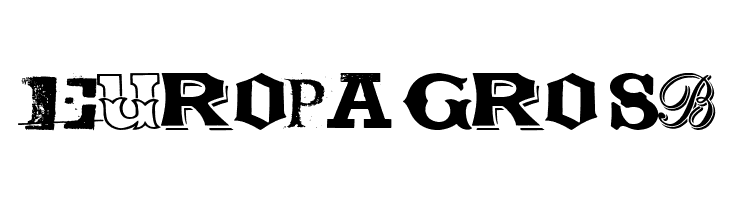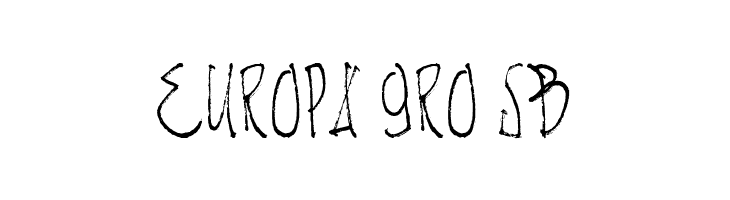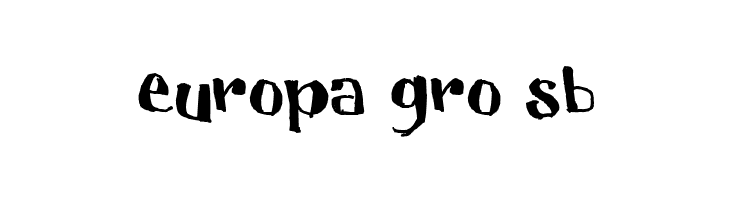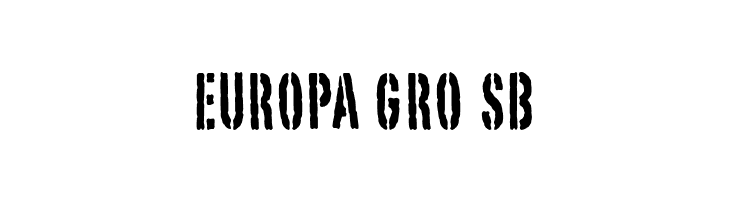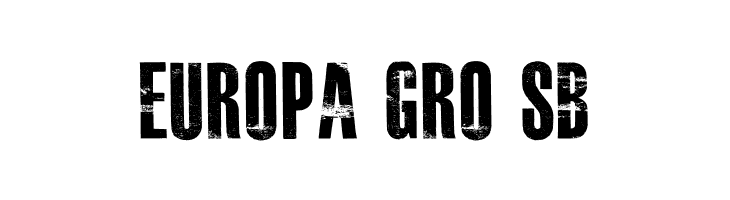
A lively and expressive handwritten font with fluid, cursive strokes.
A modern, geometric sans-serif font with rounded edges and uniform width.
A bold, decorative font with a distressed, grunge texture, ideal for thematic designs.
A bold, graffiti-inspired font with playful, rounded characters.
A bold, distressed font with a rugged, vintage aesthetic.
A bold, elegant script font with flowing cursive letters and high contrast.
An elegant script font with ornate, flowing letterforms and high contrast.
A bold, brush-style script font with a dynamic, hand-drawn appearance.
An elegant and ornate script font with flowing, interconnected letterforms.
A distressed, grunge-style font with a rough, textured appearance.
A bold, cursive font with elegant, flowing strokes.
A textured, cursive font with a playful, vintage feel.
A bold, vintage-inspired font with a playful and structured style.
A grungy, distressed script font with intricate swirls and splatters.
A bold, playful font with a three-dimensional outline and whimsical serifs.
A bold, fluid script font with dynamic strokes and interconnected letters.
A bold, distressed font with a grunge texture, perfect for edgy designs.
A bold, distressed font with a vintage, textured appearance.
A bold, italicized font with high contrast and a modern, dynamic style.
A bold, distressed stencil font with a vintage industrial feel.
A decorative and eclectic font with intricate patterns and vintage flair.
A bold, distressed font with a textured, vintage appearance.
A bold, geometric font with a modern, futuristic aesthetic.
A bold, slanted font with a dynamic and modern style.
A bold, cursive font with a playful and elegant style.
A classic, elegant script font with flowing, cursive letterforms.
A bold, distressed font with a grunge aesthetic and rugged texture.
A bold, graffiti-inspired font with sharp, angular lines and a distressed texture.
An elegant, bold script font with flowing, cursive design and medium contrast.
A bold, brush-style font with a dynamic and edgy appearance.
A bold, cursive script font with elegant loops and a handwritten feel.
A bold, cursive script with high contrast and elegant flourishes.
A bold, geometric font with a modern, industrial feel.
A bold, hand-drawn font with a textured, sketch-like appearance.
A modern, geometric font with clean lines and a minimalist style.